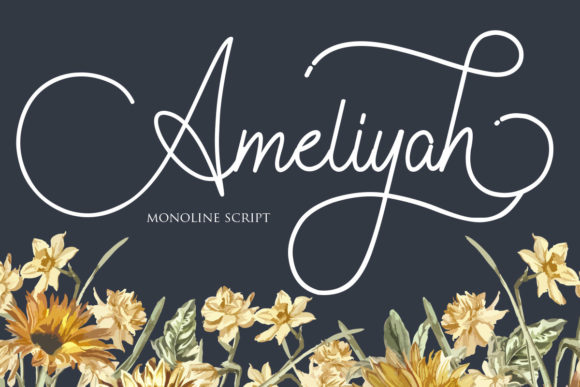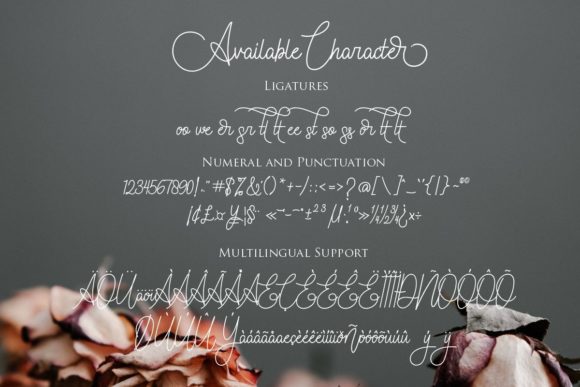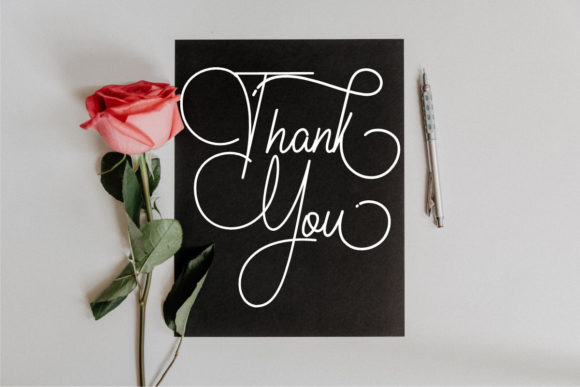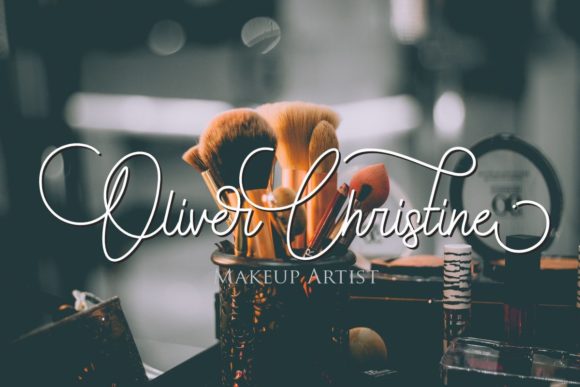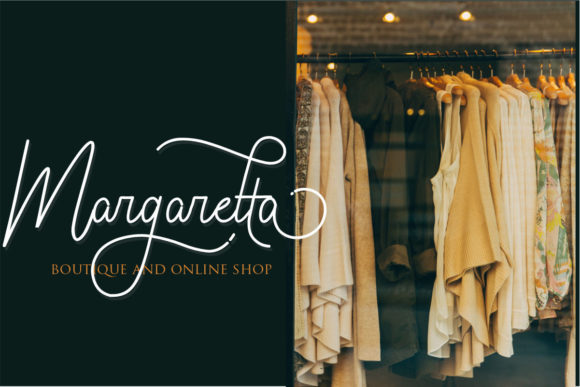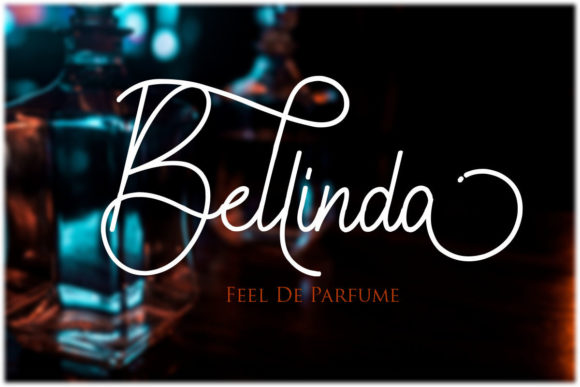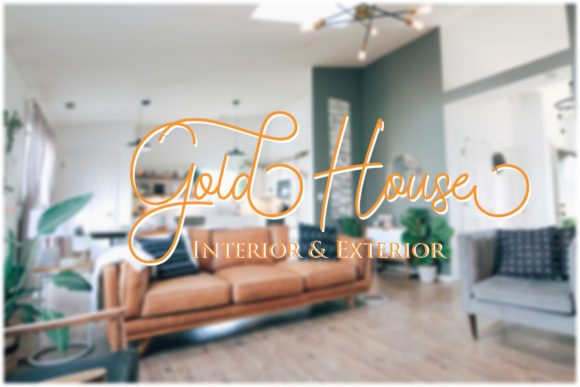
Ameliyah Font
About Ameliyah Font
Ameliyah is a cursive and refined script font. It has a modern, elegant and beautiful look that can be used for logos, branding, invitations, stationery, wedding designs, social media posts, and much more! This font is PUA encoded which means you can access all of the glyphs and swashes with ease!